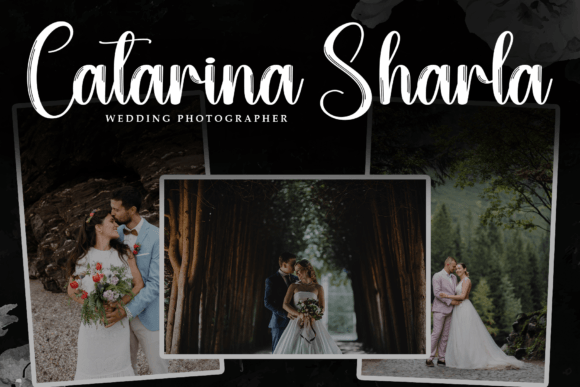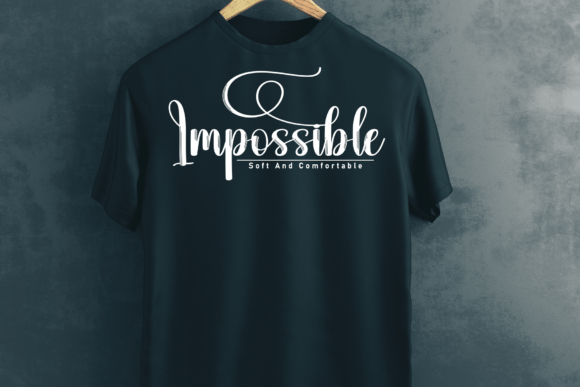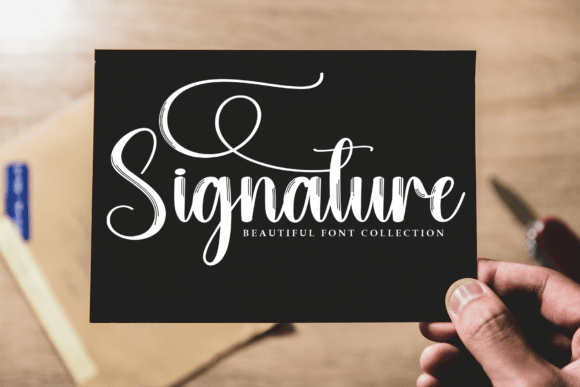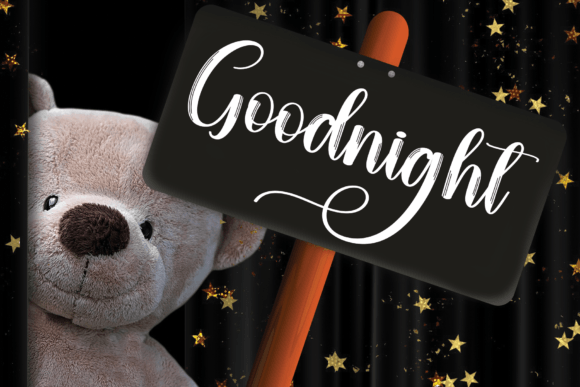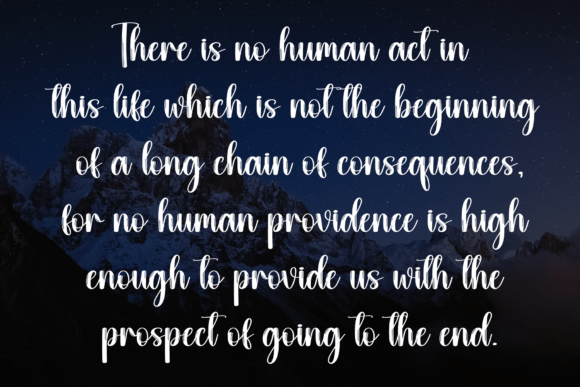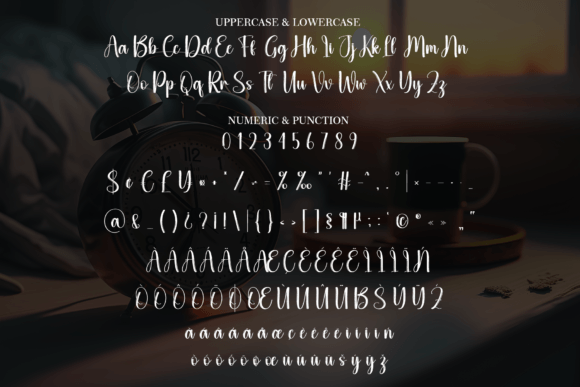
Introducing Everyday Font: Elevate Your Designs with Elegance and Sophistication
In the world of design, fonts play a crucial role in conveying the tone and personality of a project. Whether you’re a professional designer or a crafty DIY enthusiast, finding the right font can make all the difference. If you’re looking for a bold and elegant script font that can elevate your designs, look no further than Everyday Font. In this article, we’ll explore the features and benefits of Everyday Font, and how it can be used to create stunning designs for various applications.
What is Everyday Font?
Everyday Font is a bold and elegant script font that is perfect for a wide range of design projects. Its unique and tasteful handwriting style makes it ideal for wall displays, wedding invitations, social media posts, logos, advertisements, product packaging, product designs, labels, photography, watermarks, invitations, stationery, and any project that requires a touch of sophistication.
Key Features of Everyday Font
- Bold and Elegant: Everyday Font boasts a bold and elegant script style that is sure to make your designs stand out.
- Versatile: This font is perfect for a wide range of design projects, from wedding invitations to product packaging.
- Tasteful Handwriting: Everyday Font features a unique and tasteful handwriting style that adds a personal touch to your designs.
- Easily Readable: Despite its bold and elegant style, Everyday Font is easily readable, making it perfect for both digital and print designs.
Uses of Everyday Font
Everyday Font is a versatile font that can be used for a wide range of design projects. Here are some ideas to get you started:
- Wedding Invitations: Add a touch of elegance and sophistication to your wedding invitations with Everyday Font.
- Wall Displays: Create stunning wall displays for your home or office with Everyday Font.
- Social Media Posts: Elevate your social media posts with Everyday Font and make them stand out in a crowded feed.
- Logos and Branding: Use Everyday Font to create a bold and elegant logo for your business or brand.
- Product Packaging: Add a touch of sophistication to your product packaging with Everyday Font.
- Photography: Use Everyday Font to add a personal touch to your photography, such as watermarks or captions.
Benefits of Using Everyday Font
Using Everyday Font in your designs offers several benefits, including:
- Unique and Eye-catching: Everyday Font is a unique and eye-catching font that will make your designs stand out.
- Professional-looking: This font gives your designs a professional and polished look, perfect for businesses and brands.
- Easy to Read: Everyday Font is easily readable, making it perfect for both digital and print designs.
- Versatile: This font can be used for a wide range of design projects, making it a great addition to your font library.
Tips for Using Everyday Font
Here are some tips for using Everyday Font in your designs: